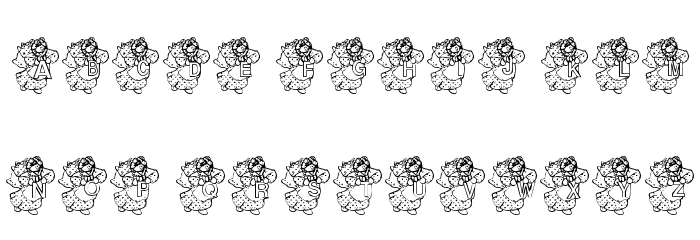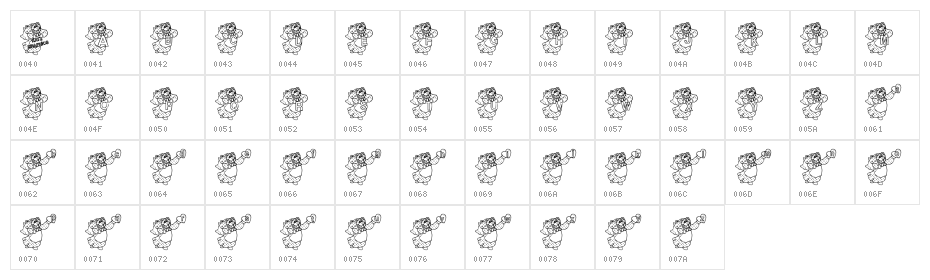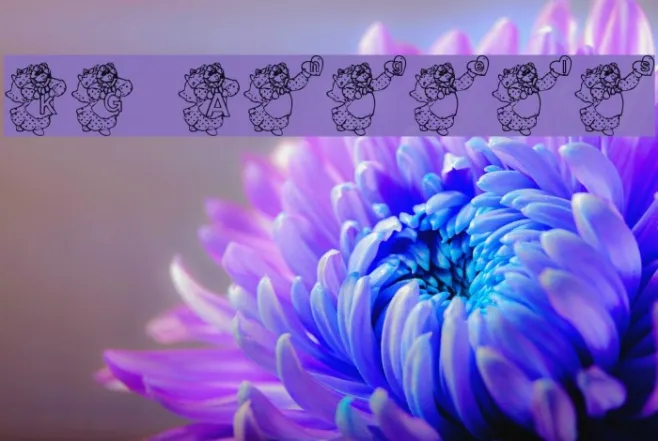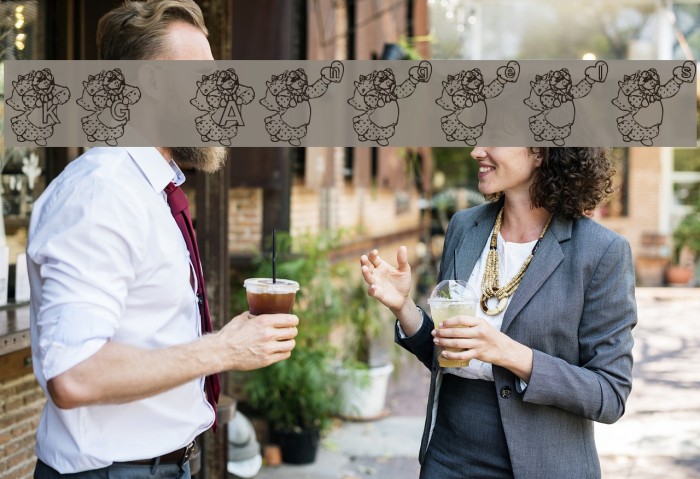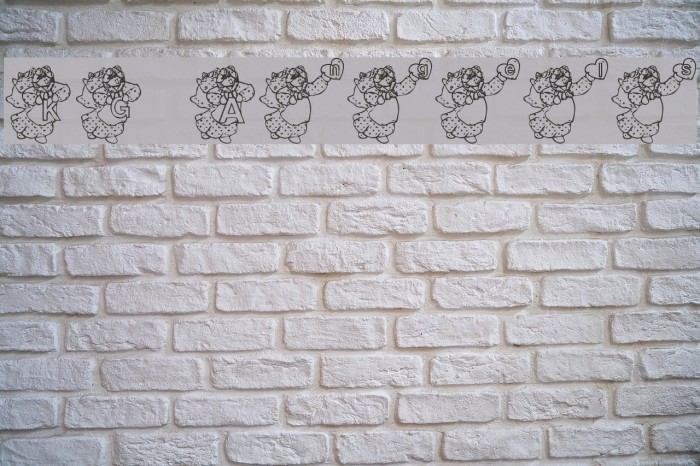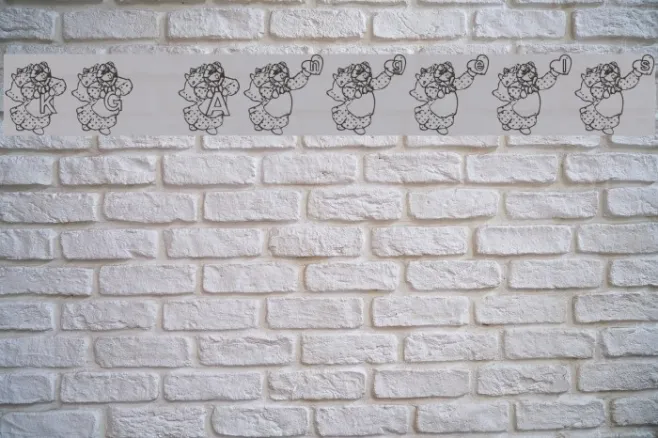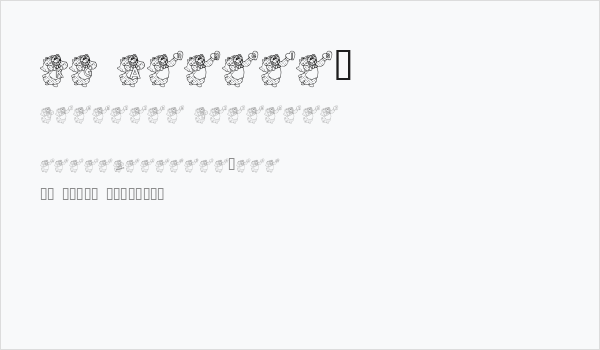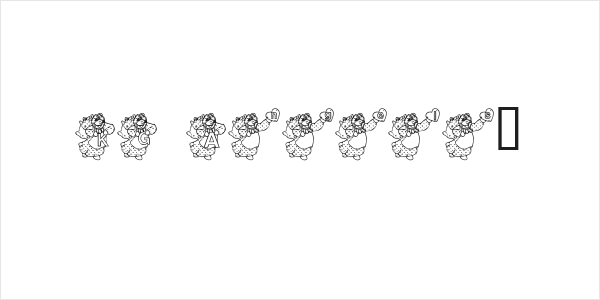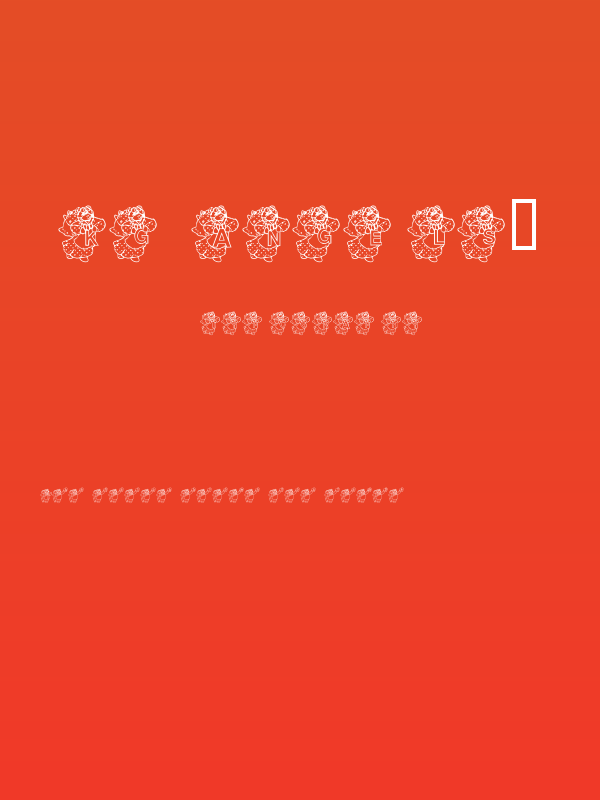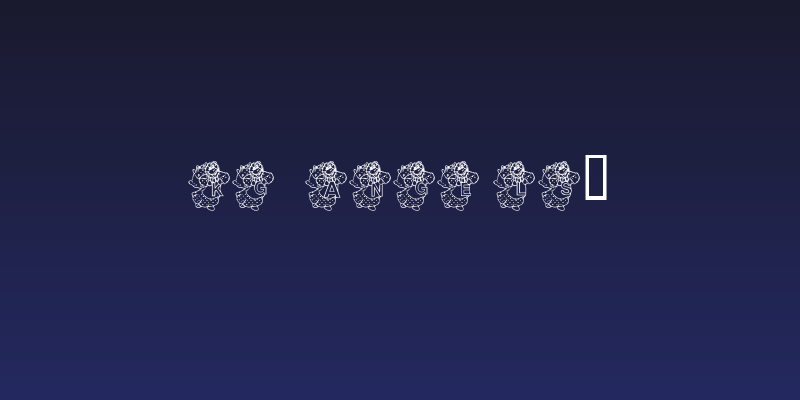
KG Angels3 Font
KG Angels3 Description
This decorative font features whimsical angel illustrations integrated with each character. Each letter is encased within a charming angel design, giving it a playful and unique appearance. The font is highly decorative, making it ideal for projects that require a touch of fantasy or a childlike theme. The characters are consistent in style, with intricate details that add to the overall aesthetic. This font is not suitable for body text due to its elaborate design but works well for creative headings or artistic projects.
| Proposed Projects | Ideal for children's book covers, greeting cards, holiday-themed projects, and playful invitations. |